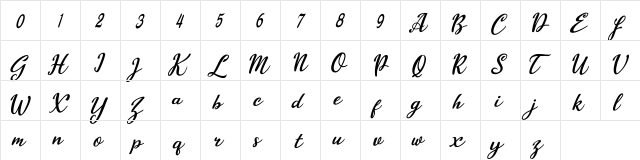
Billy Scriptian Billy Scriptian
Design Context for Billy Scriptian Typeface
Billy Scriptian flows with the natural rhythm of handwritten lettering, making it ideal for designs that call for warmth and personal expression.
Font Pairing: Combine Billy Scriptian with a simple geometric sans for maximum contrast — the tension between flowing curves and clean structure is a classic typographic pairing.
Pro Tip: Pair Billy Scriptian with a clean sans-serif for supporting text. The contrast between fluid script and geometric structure creates an elegant typographic hierarchy.